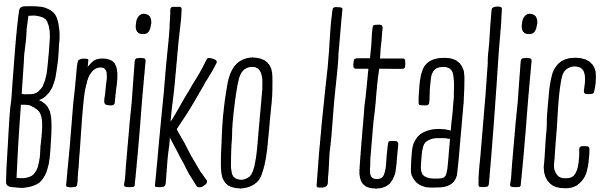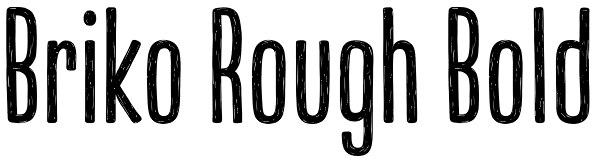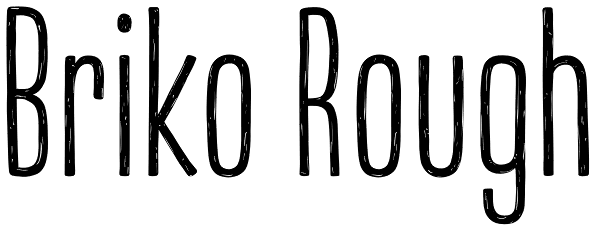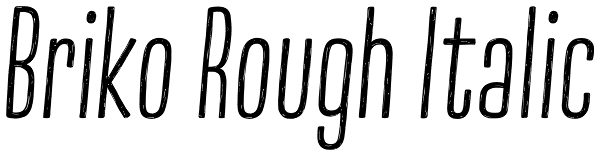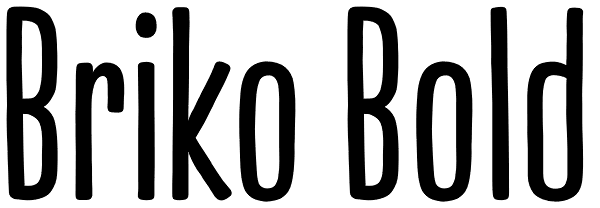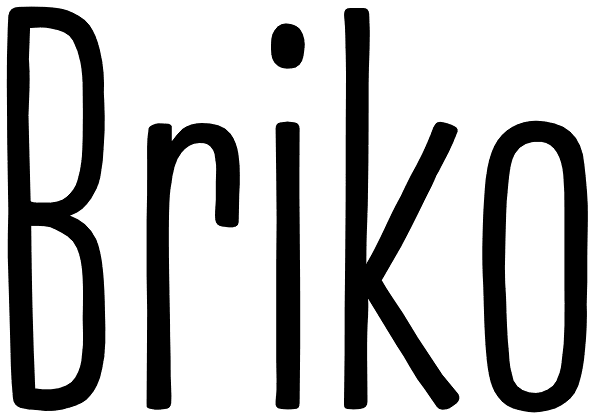
Briko
Briko is a legible hand-crafted type family that comes in two weights. Its little bit bumpy outline and soft edges give it friendly feelings. There are two versions of Briko Family; Briko and Briko Rough(textured). Perfect for a header for an...